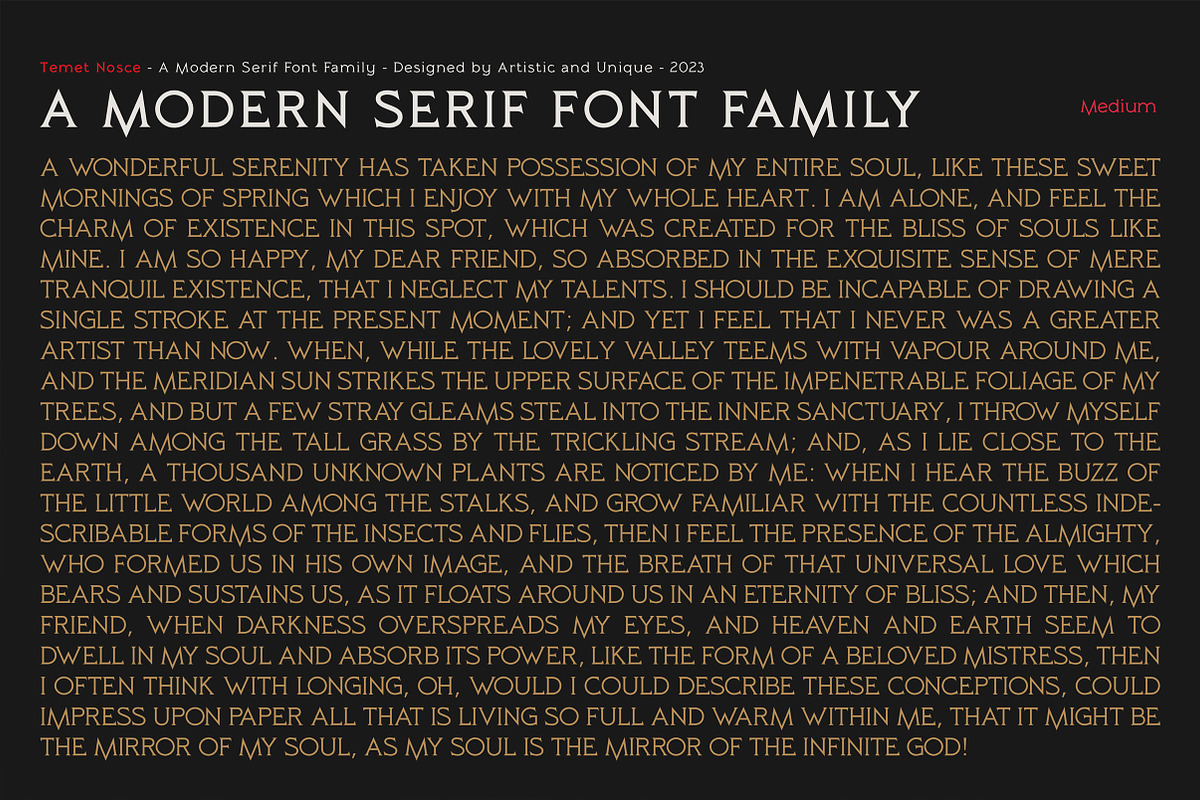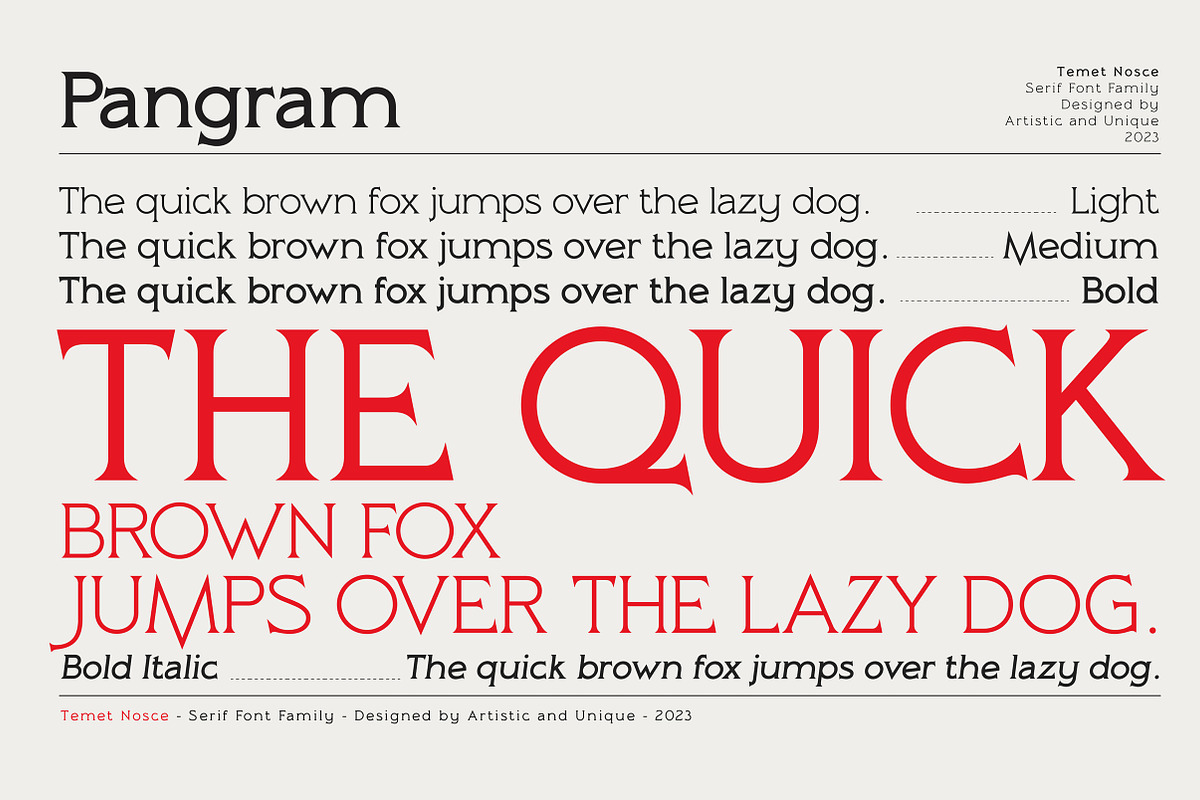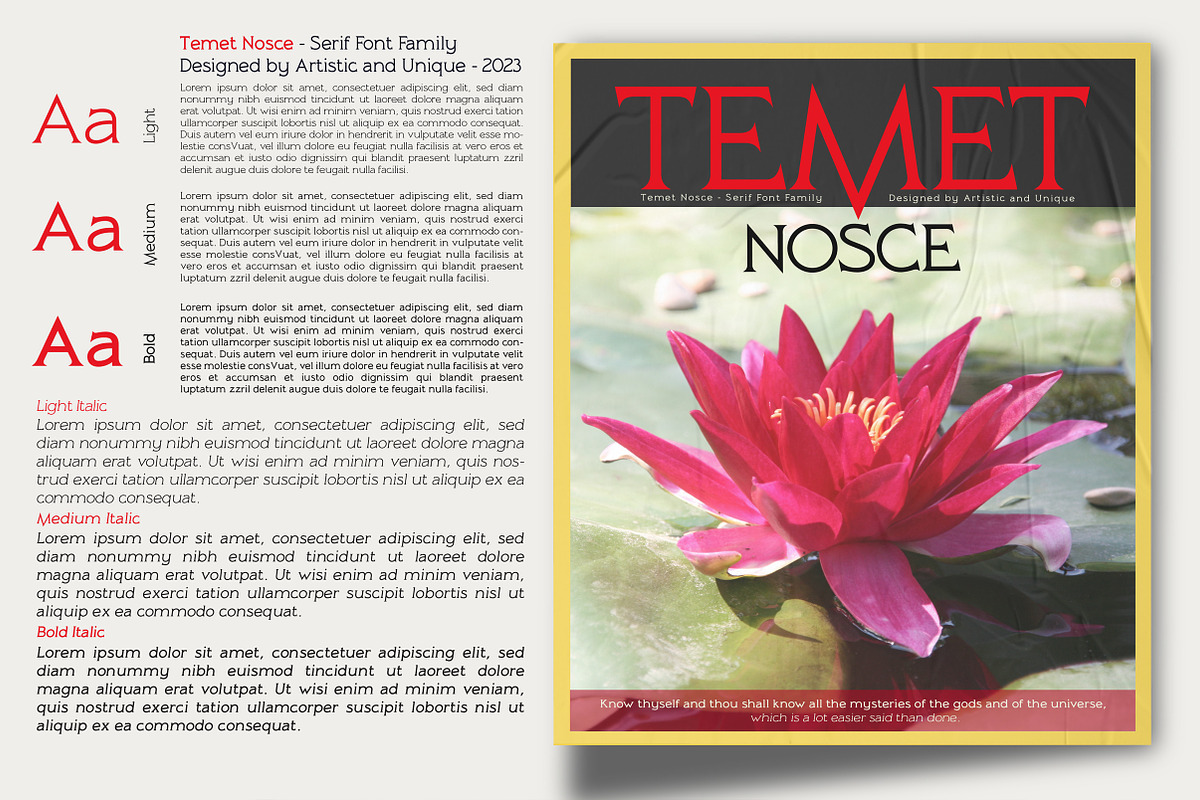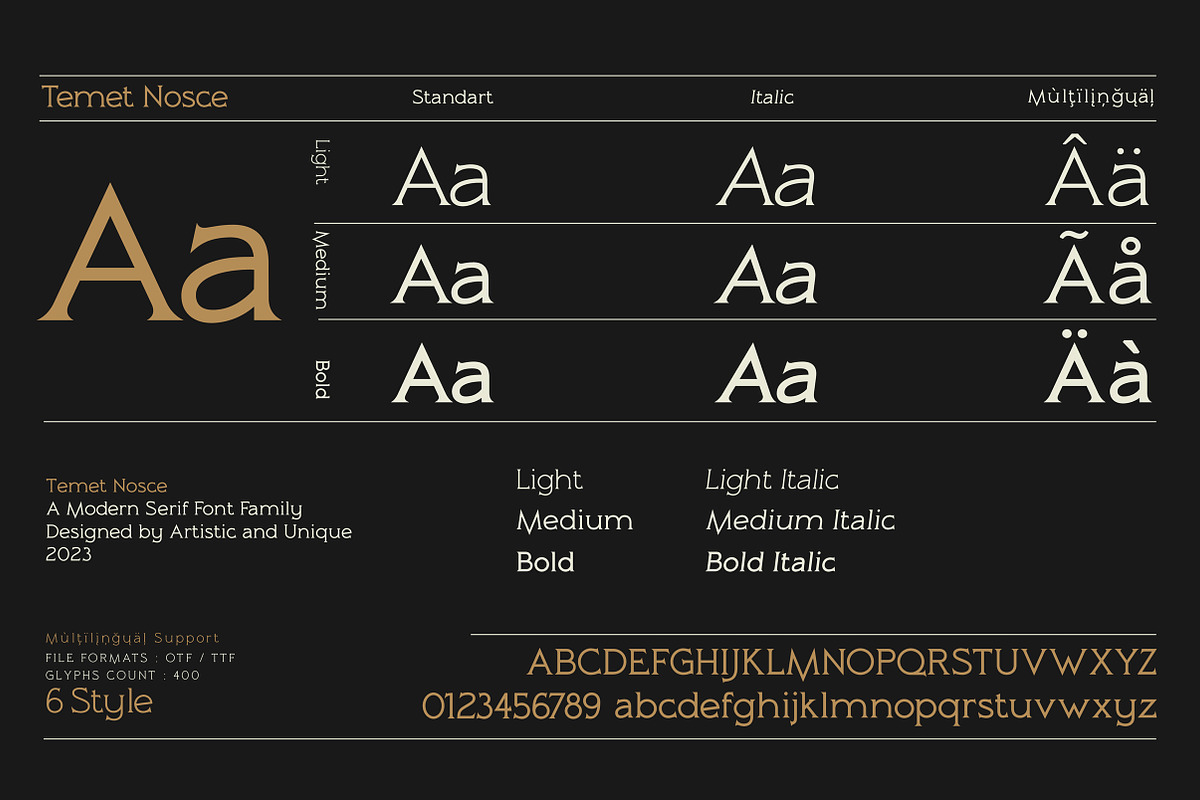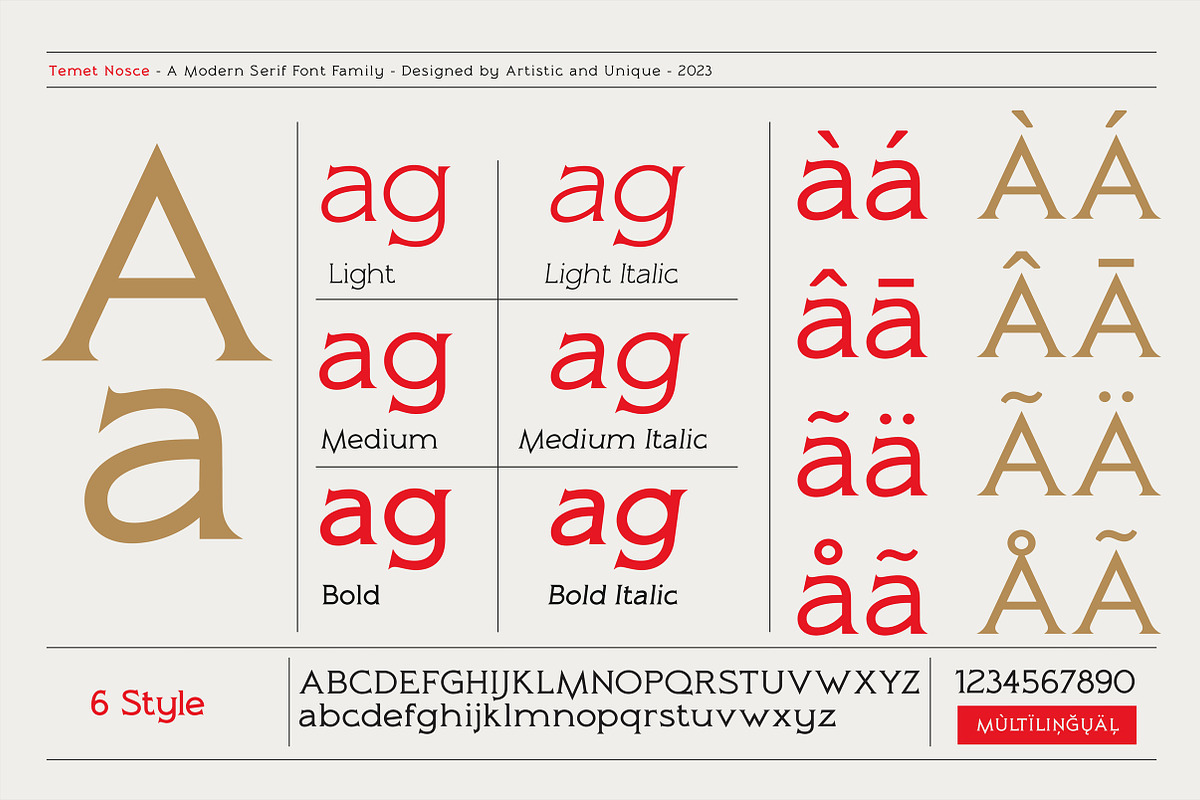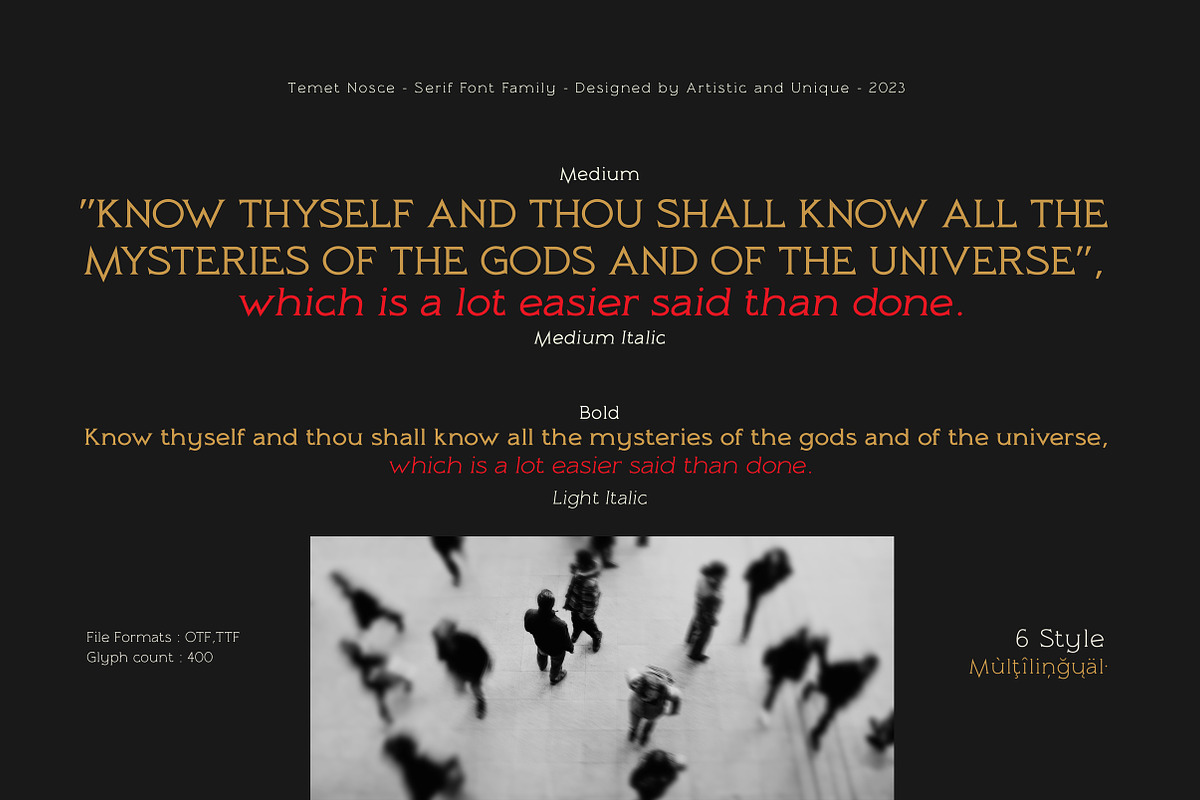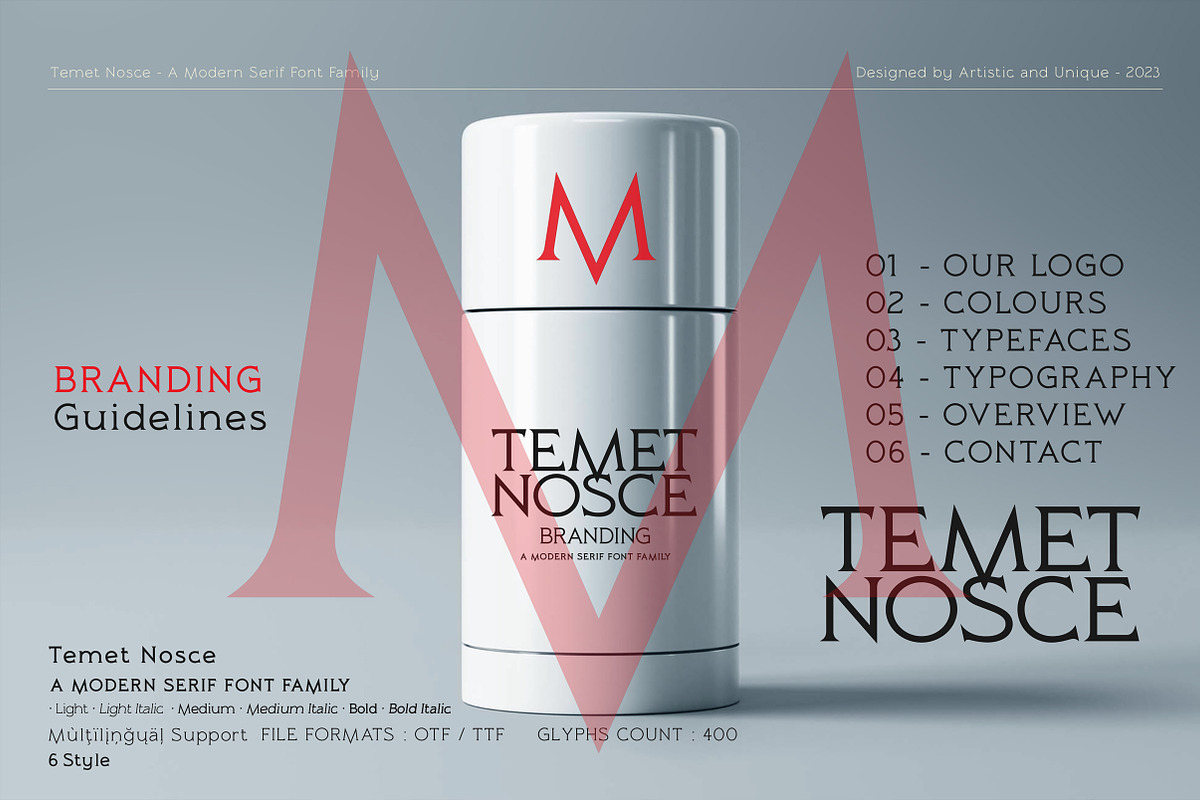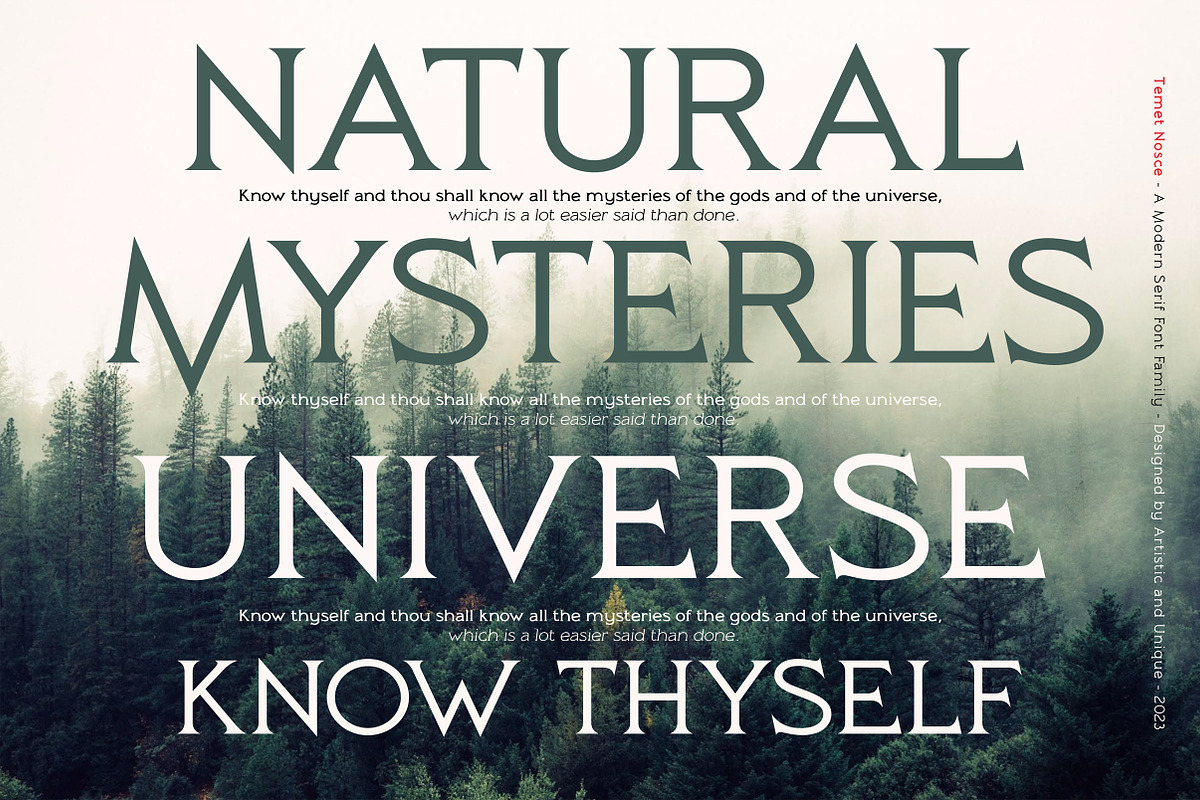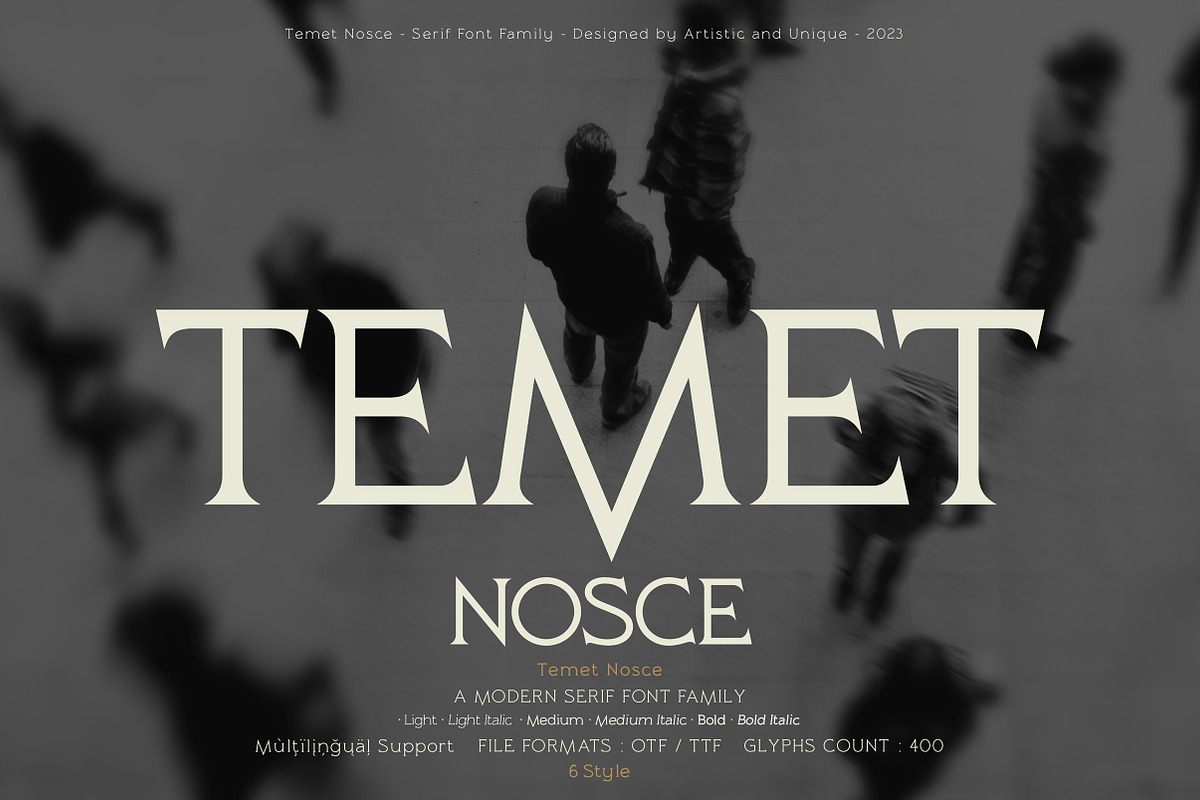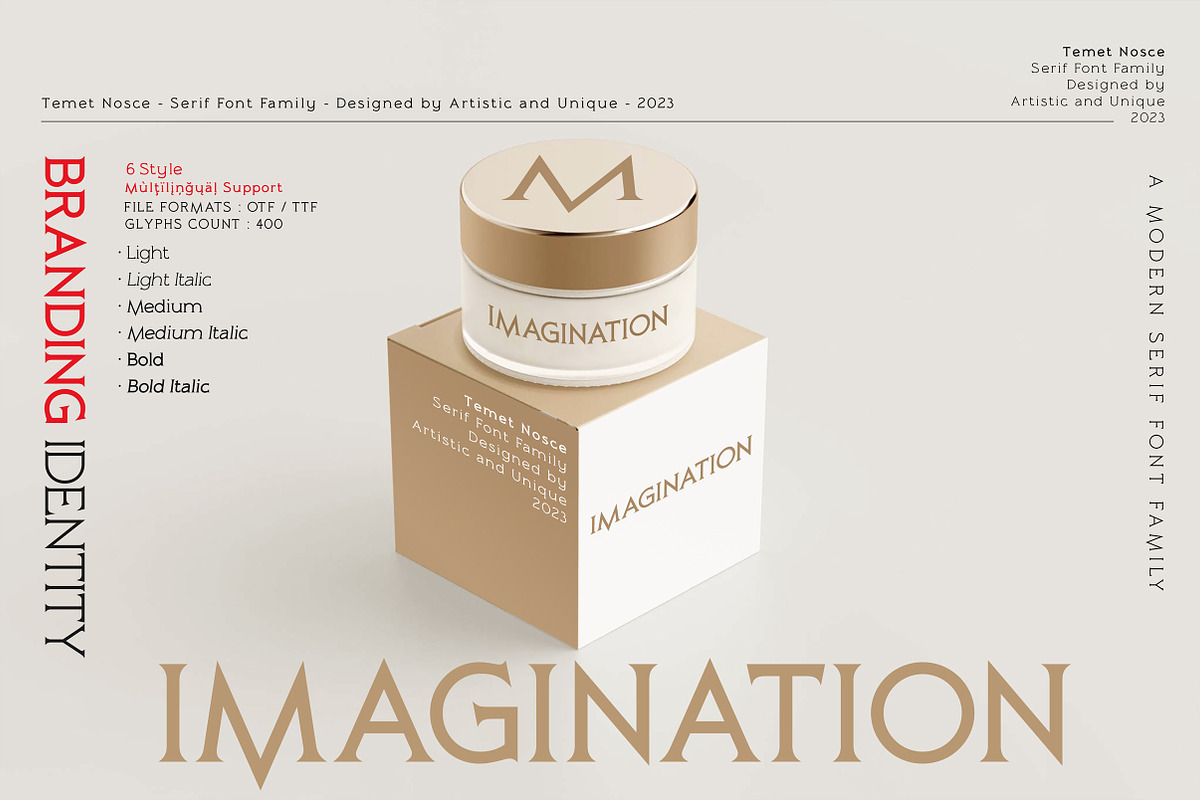
Temet Nosce - Serif font family
Temet Nosce - Serif font family - Multilingual - 6 Styles
Temet Nosce Serif font family help you develop your creative projects with its 6 styles and multilingual supports.
It was inspired by the famous saying from ancient Greek mythology. The characters that make up its structure were influenced by the carved letters in the old stone inscriptions.
According to ancient Greek and Roman authors, there were three maxims prominently inscribed upon the Temple of Apollo at Delphi: "know thyself", "nothing too much" and "give a pledge and trouble is at hand". Their exact location is uncertain; they are variously stated to have been on the wall of the pronaos (forecourt), on a column, on a doorpost, on the temple front, or on the propylaea (gateway). The date of their inscription is also unknown, but they were present at least as early as the 5th century BC. Although the temple was destroyed and rebuilt several times over the years, the maxims appear to have persisted into the Roman era (1st century AD), at which time, according to Pliny the Elder, they were written in letters of gold.
This font comes with uppercase, lowercase, punctuation, symbols and numbers, ligatures and multilingual supports. Ideal for books and magazines, editorials, headlines, websites, logos, branding, advertising and more. This font family can meet your needs in all creative projects, modern and classic.
With this font you can create your unique designs.